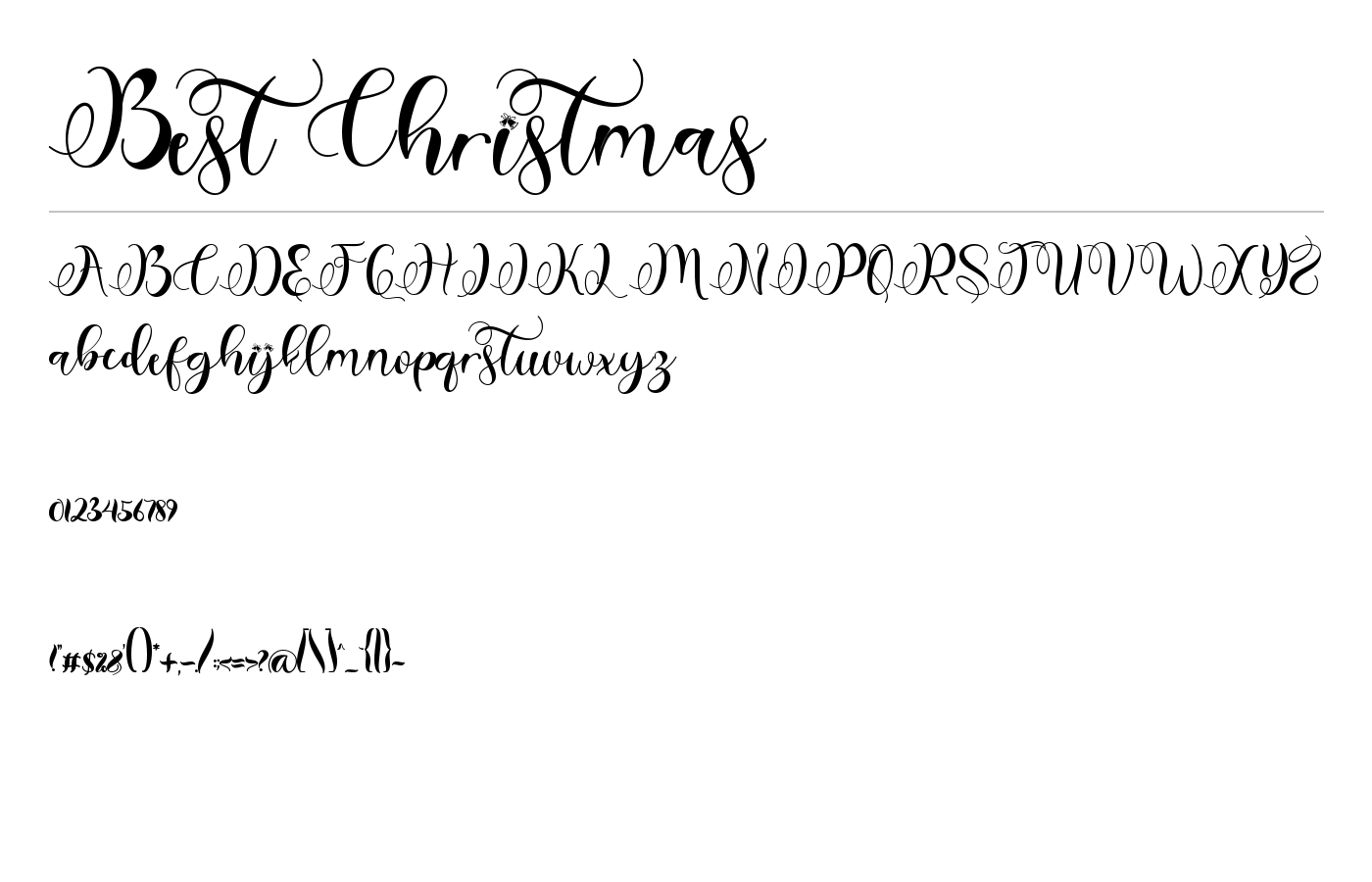
Best Christmas Font is a graceful and festive script typeface featuring elegant, flowing strokes with playful swashes and delicate flourishes. Its light to medium weight and high contrast between thick and thin lines give it a charming, handwritten feel that is perfect for holiday cards, invitations, and seasonal branding, evoking warmth and celebration. This font shines in decorative uses where a joyful, stylish, and sophisticated mood is desired.
Best Christmas Font
About Best Christmas Font
| Font family | Best Christmas Font |